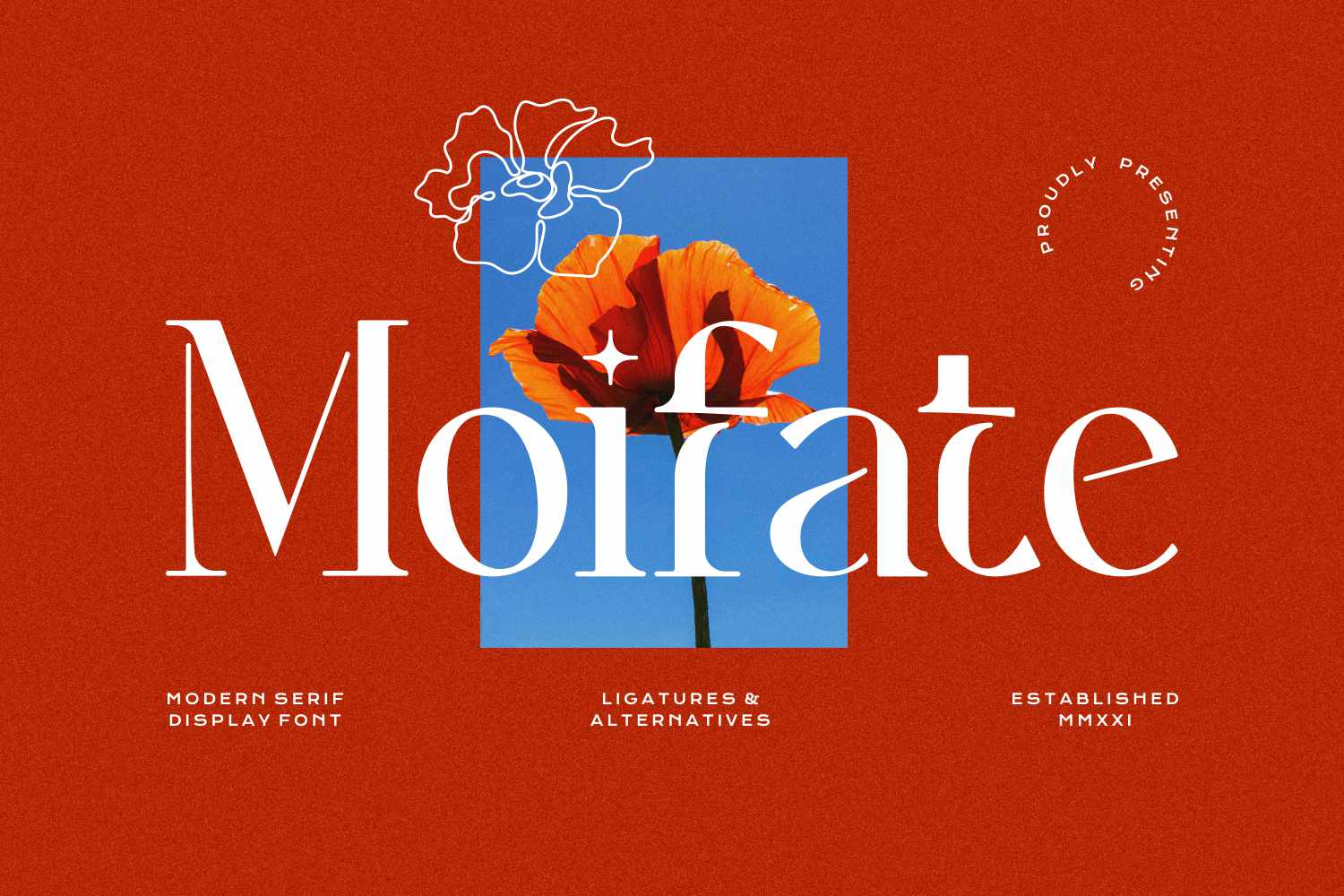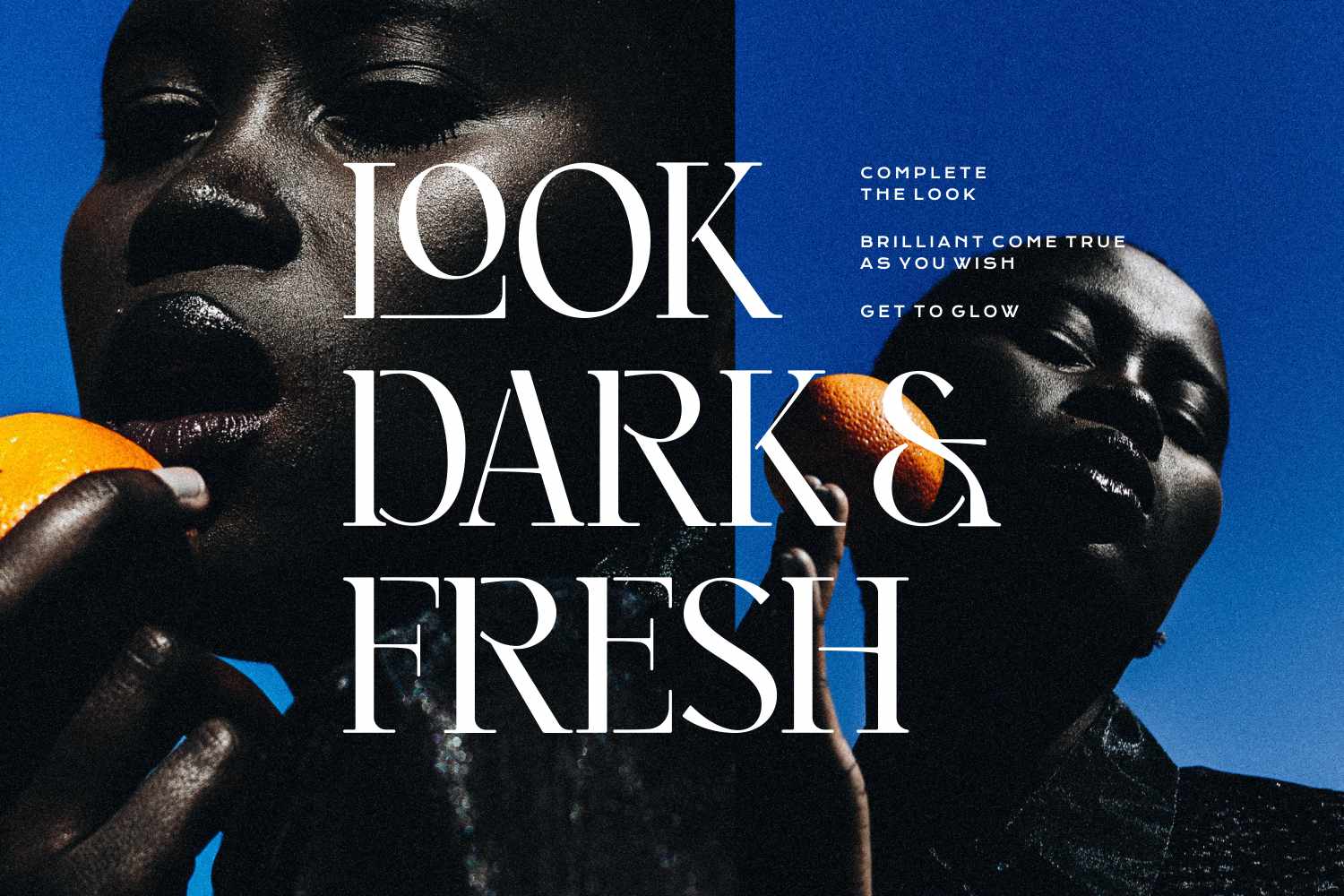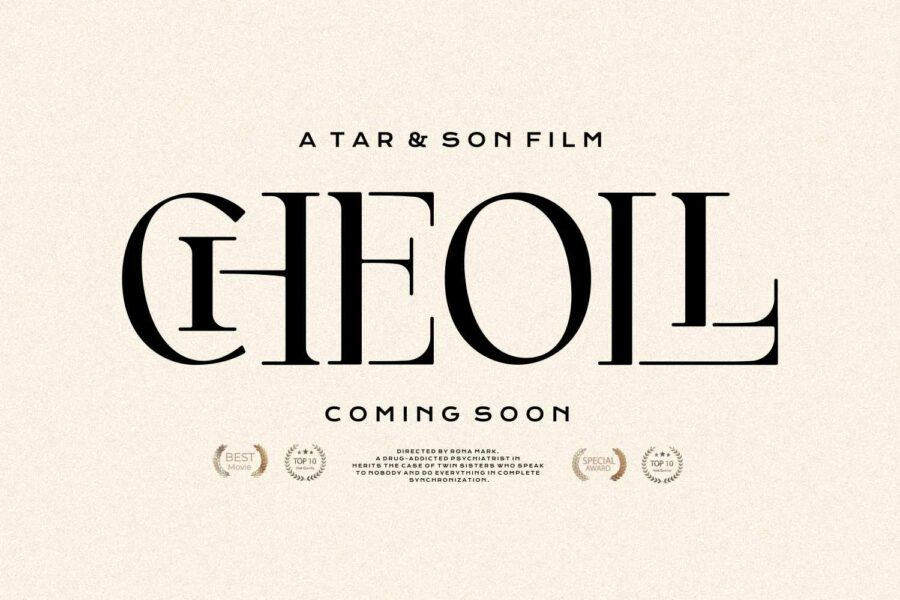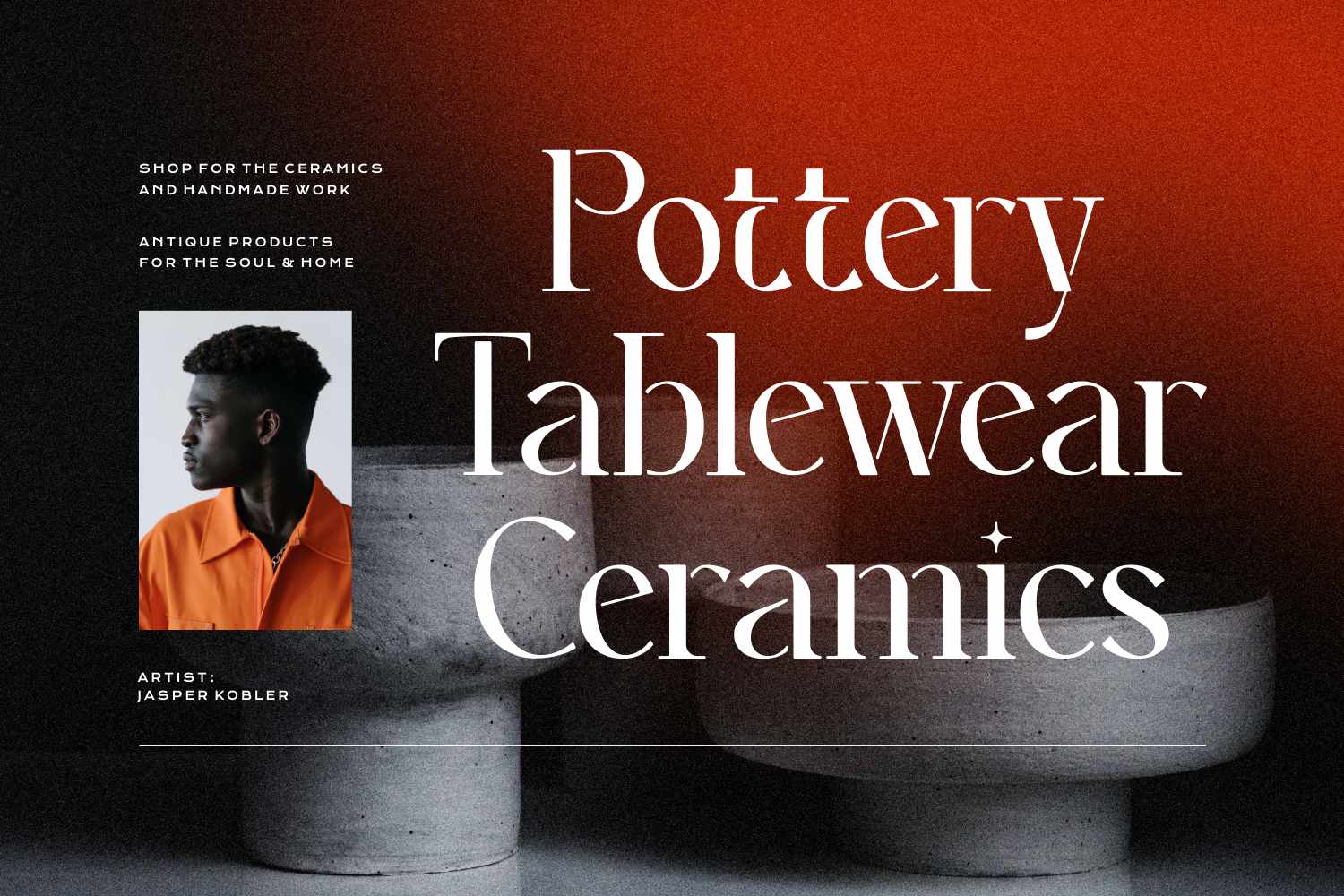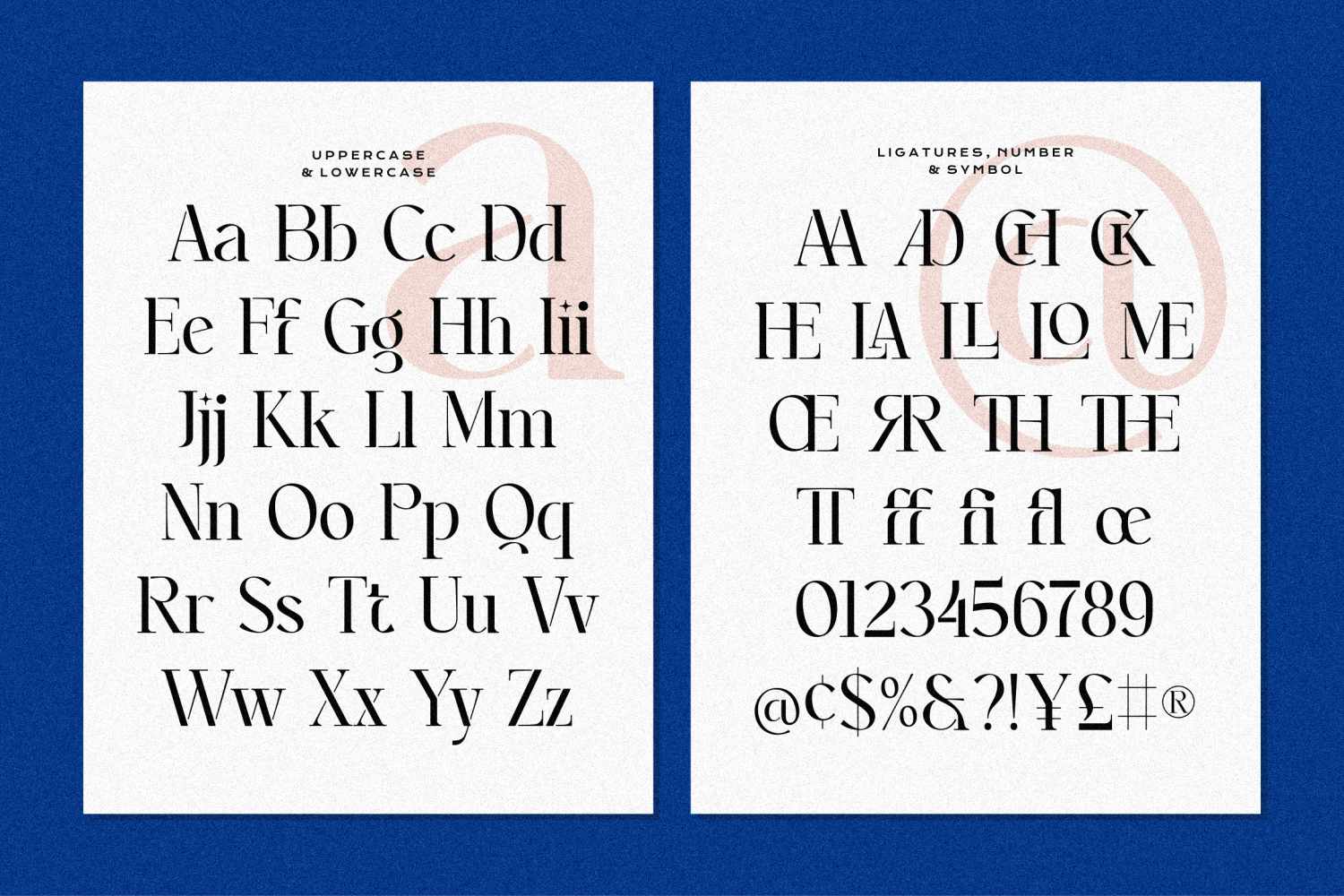
Moifate is a refined modern serif display font that exudes sophistication and artistic flair. Its high contrast strokes, elegant curves, and stylish ligatures make it perfect for branding, fashion editorials, and luxury packaging. The font blends traditional serif roots with contemporary design elements, offering a unique identity for any creative project.
Featuring a full set of uppercase and lowercase characters, numbers, punctuation, and a wide range of ligatures, Moifate ensures flexibility in typographic compositions. Its graceful rhythm and attention to detail bring a timeless yet fresh feel, making it ideal for magazine spreads, posters, logos, or stylish social media content.
Moifate